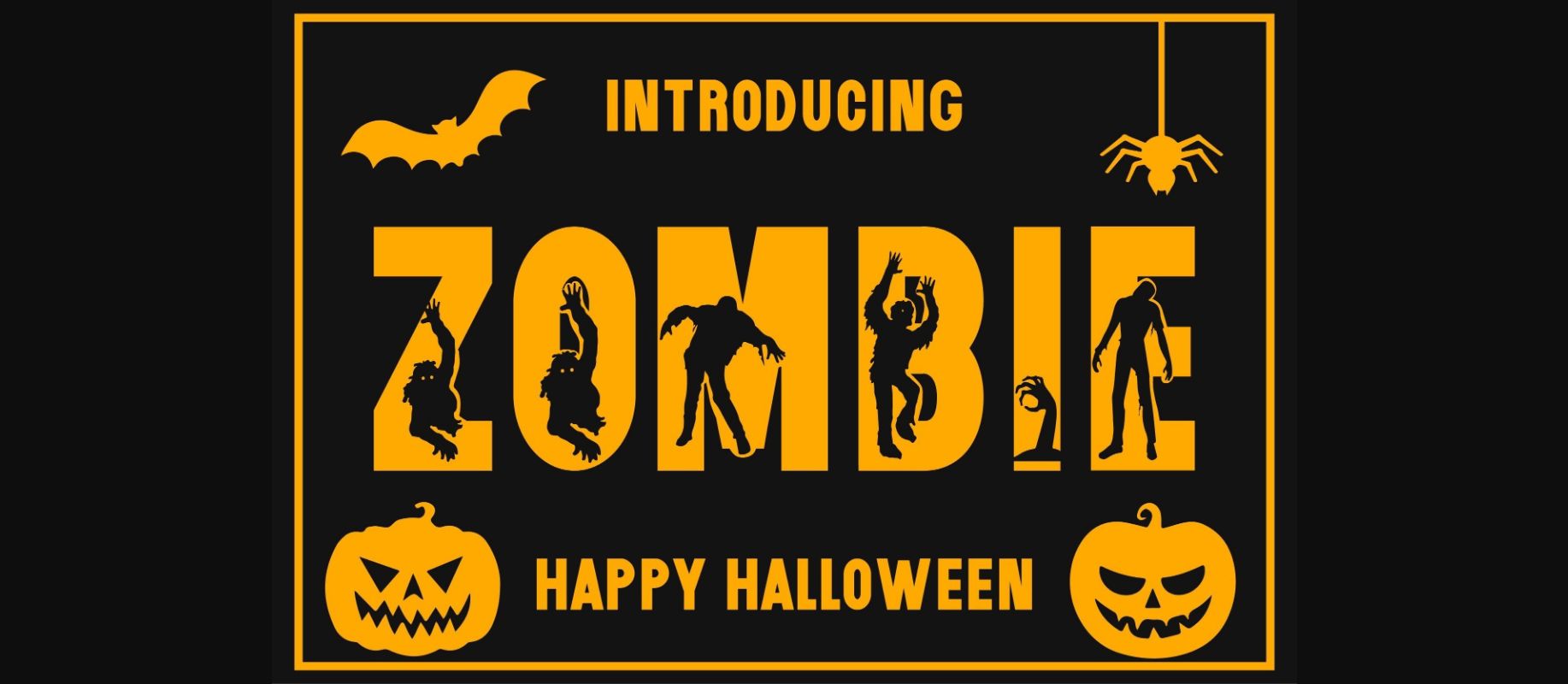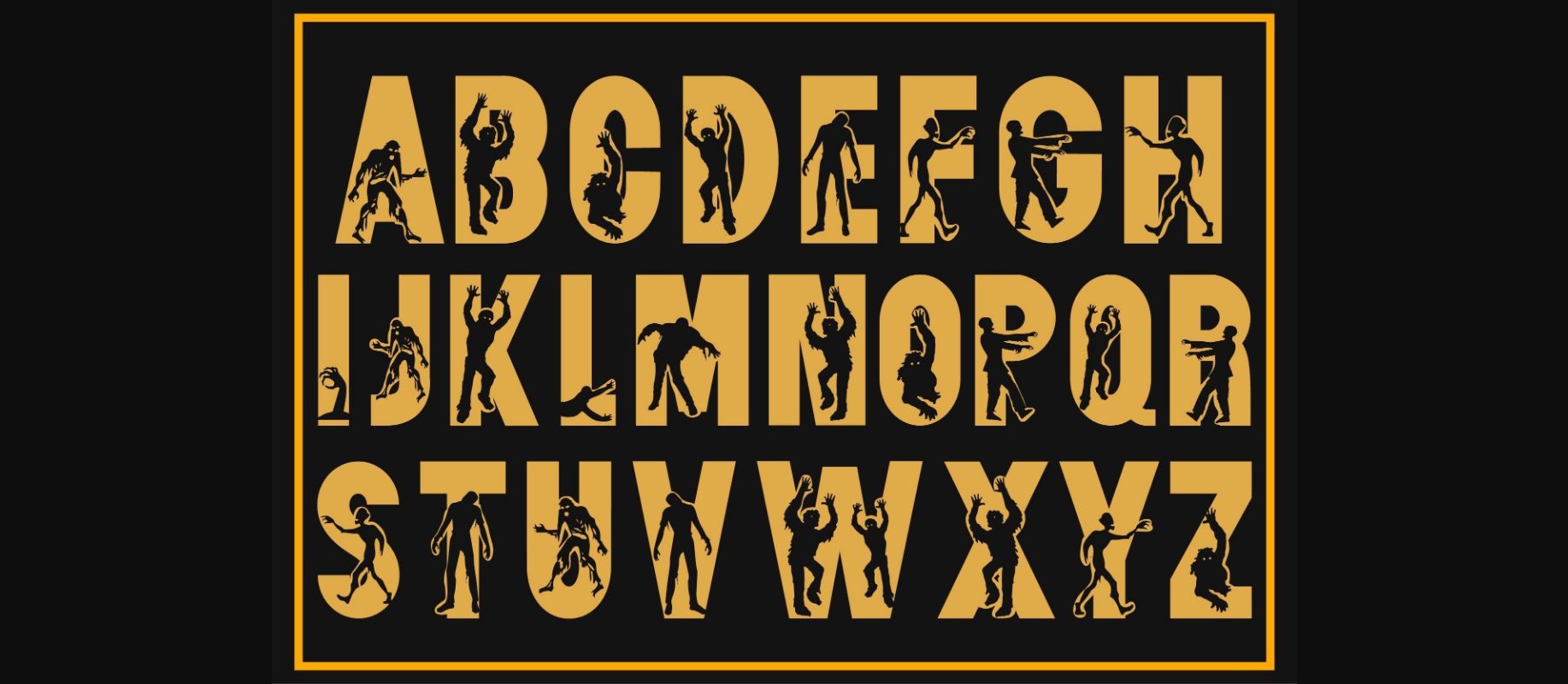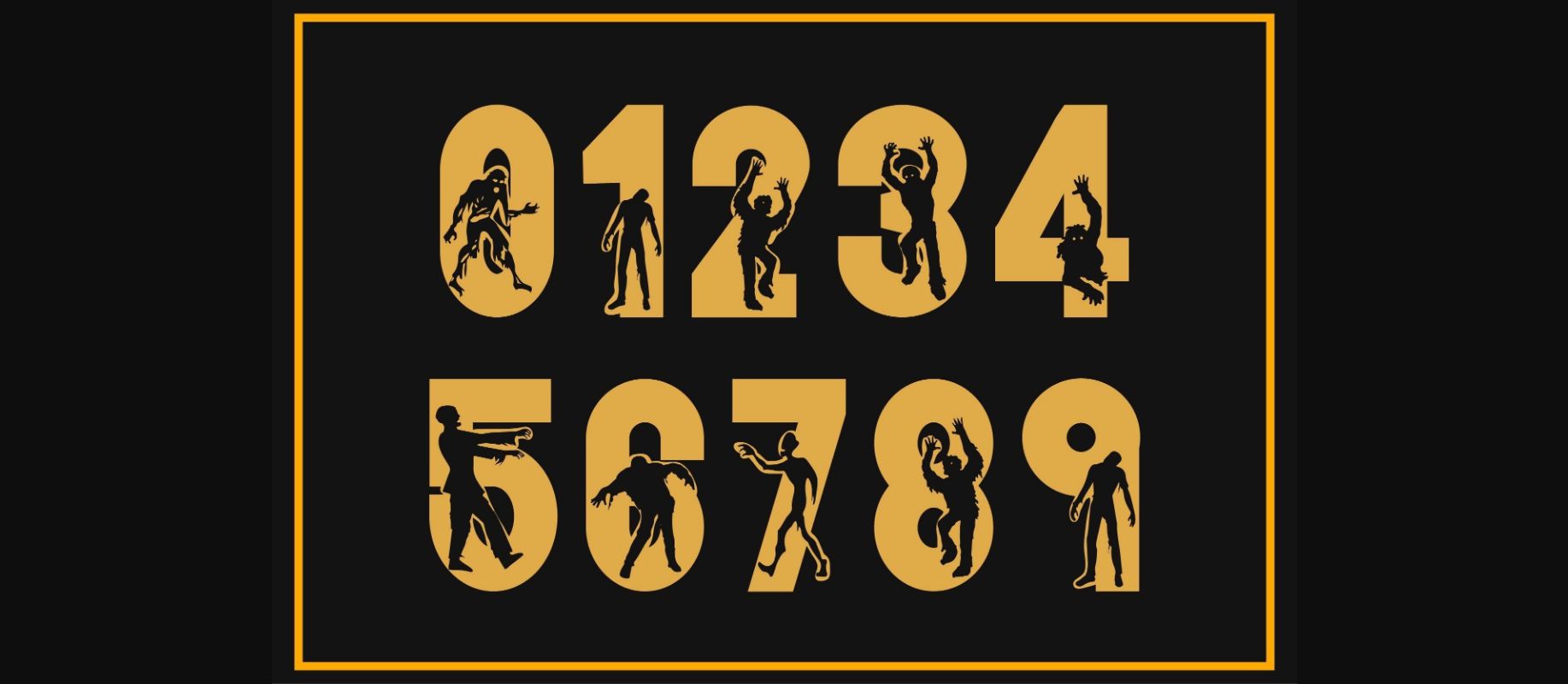
Zombie Font
About Zombie Font
Zombie is a thick-lettered and spooky display font. It is perfectly suitable for any Halloween-related project or crafty idea!